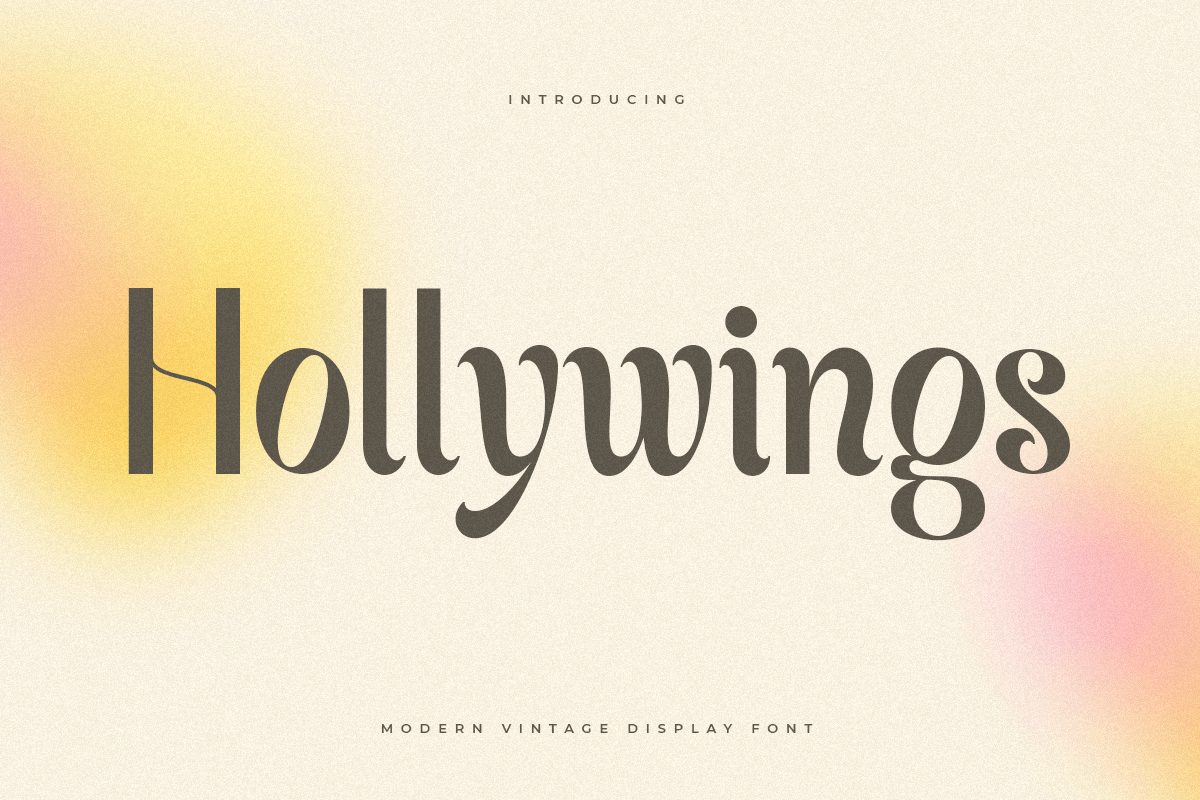
Hollywings
-Modern Vintage Display Font
Hollywings
A Modern Vintage font that we created special for elegant branding needs, with unique shape will be ready to add value of your brand. It so nice to leverage designer or product owner that need solutions to make their design look more stylish and modern. And specially for this font, We prepared any characters to help you create unlimited variations for your creative needs.